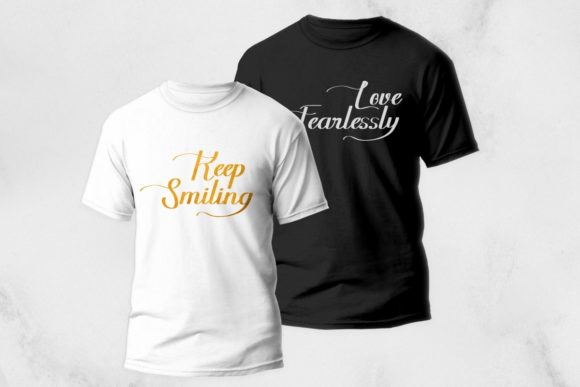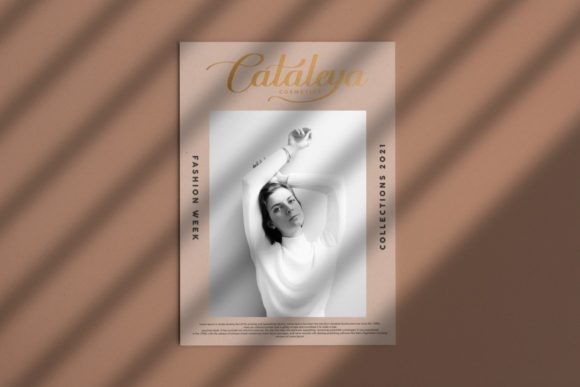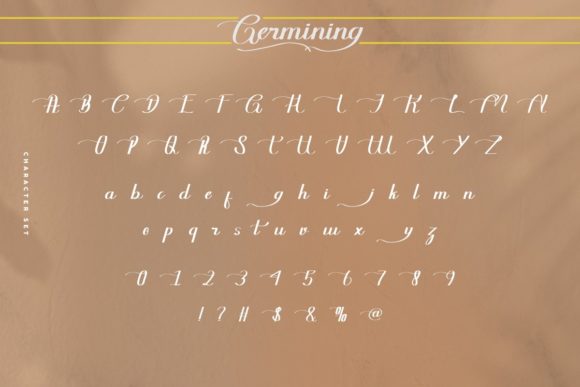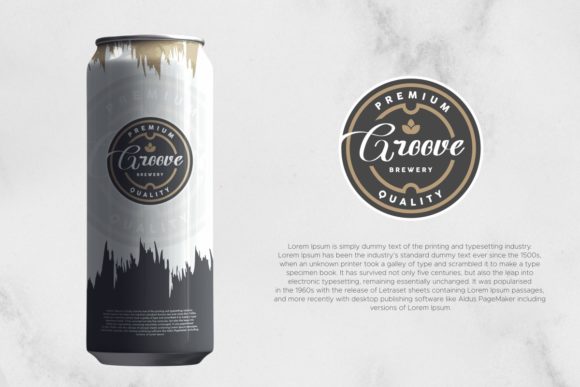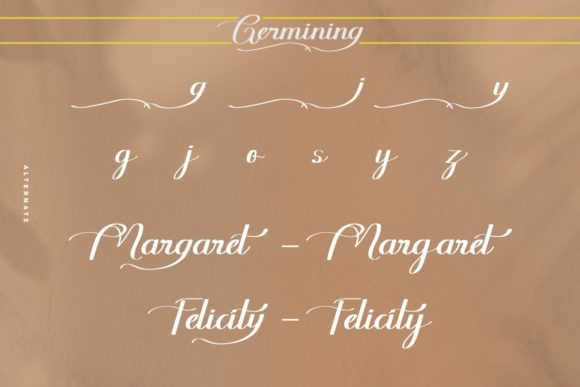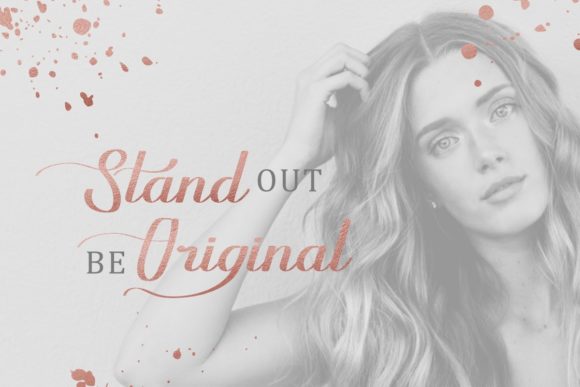
Introducing Germining Font: The Sweet and Elegant Handwritten Font for Romantic Designs
Are you looking for a font that can add a touch of romance and elegance to your designs? Look no further than Germining Font! This beautiful handwritten font is perfect for creating wedding invitations, cards, and other designs that require a personal and sentimental touch. In this article, we’ll take a closer look at Germining Font, its features, and how you can use it to elevate your designs.
What is Germining Font?
Germining Font is a sweet and well-balanced handwritten font that exudes joy and delicacy. Its dainty and elegant strokes make it an ideal choice for designs that require a romantic and personalized touch. Whether you’re a designer, crafter, or DIY enthusiast, Germining Font is a versatile font that can be used for a variety of projects.
Key Features of Germining Font
- PUA Encoded: Germining Font is PUA (Private Use Area) encoded, which means you can access all the glyphs and swashes with ease. This feature makes it easy to use the font and customize your designs.
- Handwritten Style: The font has a beautiful handwritten style that gives it a personal and unique touch.
- Romantic and Elegant: Germining Font is perfect for creating romantic and elegant designs, such as wedding invitations, anniversary cards, and love letters.
- Versatile: The font can be used for a variety of projects, including scrapbooking, paper crafting, and digital designs.
Uses of Germining Font
Germining Font is a versatile font that can be used for a variety of projects, including:
- Wedding Invitations: Create beautiful and elegant wedding invitations that set the tone for the big day.
- Cards: Design personalized cards for special occasions, such as birthdays, anniversaries, and holidays.
- Scrapbooking: Add a touch of elegance to your scrapbooking projects with Germining Font.
- Digital Designs: Use the font to create stunning digital designs, such as social media graphics, blog posts, and email newsletters.
Tips for Using Germining Font
Here are some tips for using Germining Font to get the most out of your designs:
- Pair it with Other Fonts: Experiment with pairing Germining Font with other fonts to create a unique and interesting design.
- Use it for Headings and Titles: Use Germining Font for headings and titles to add a touch of elegance and sophistication to your designs.
- Customize it: Don’t be afraid to experiment with the font’s glyphs and swashes to create a customized look.
In conclusion, Germining Font is a beautiful and elegant handwritten font that’s perfect for creating romantic and personalized designs. Its PUA encoded feature makes it easy to use and customize, and its versatility makes it suitable for a variety of projects. Whether you’re a designer, crafter, or DIY enthusiast, Germining Font is a great addition to your font collection.